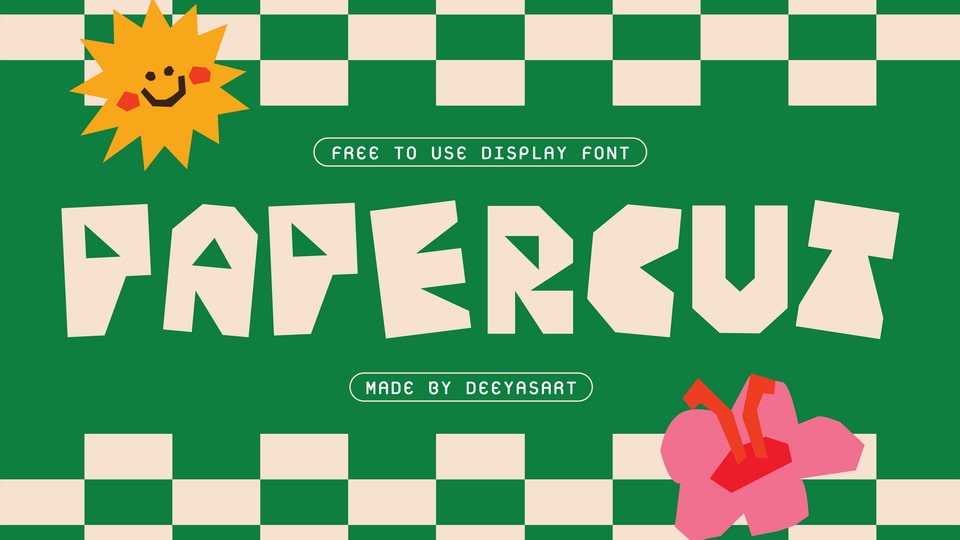
Download Papercut font, a playful, retro-inspired display typeface that captures the charm of vintage paper crafts and cheerful designs with its bold, geometric shapes.
Designer: Deeya Thakur